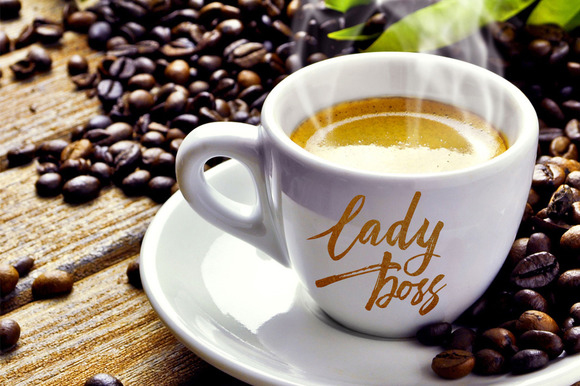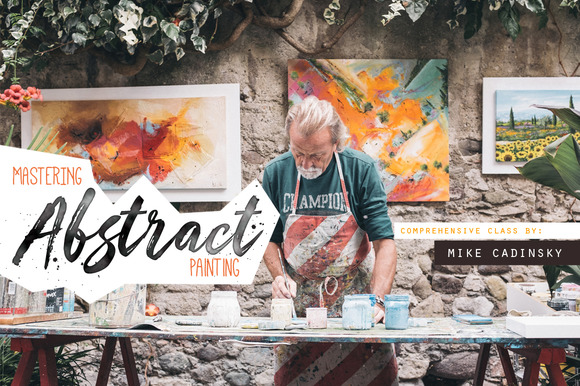
Lovely Chaos Font
db-ku.com - Script & Handwritten -- LovelyChaos is a chaotic beautiful script. The imperfect flow and grunge style, combined with script creates an elegant and grunge feel at the same time.